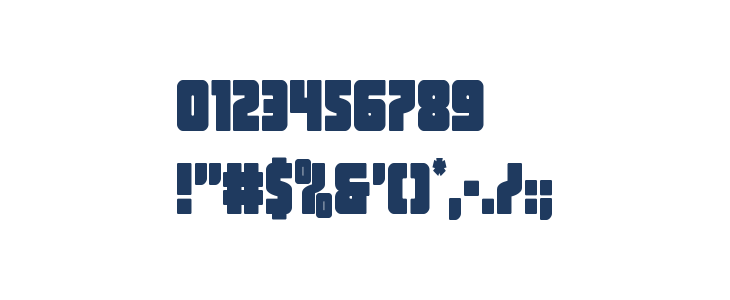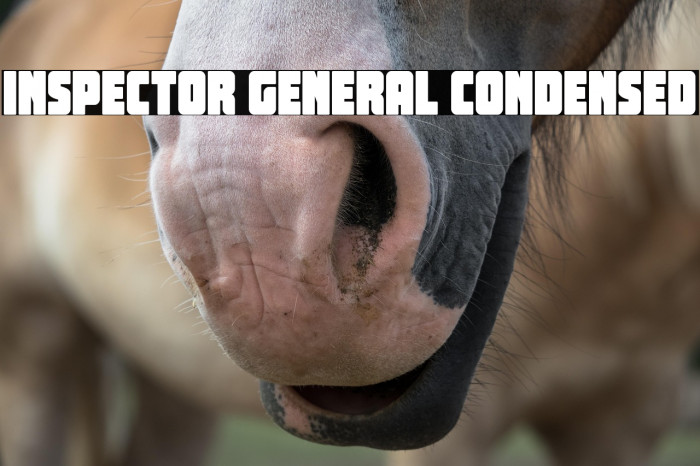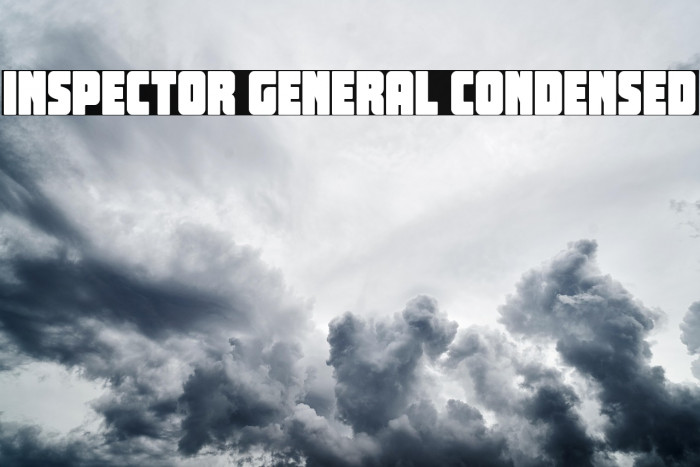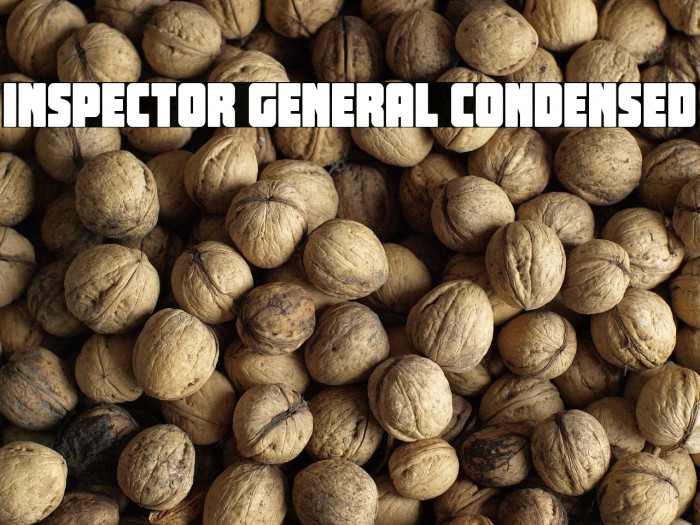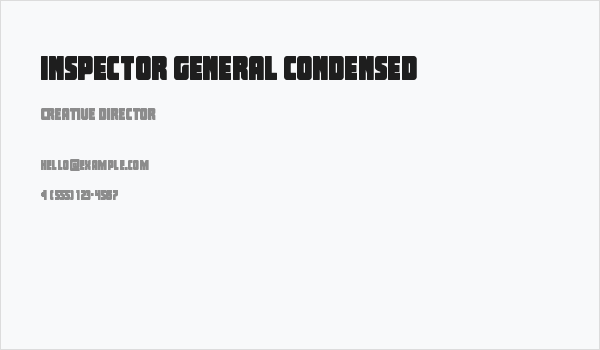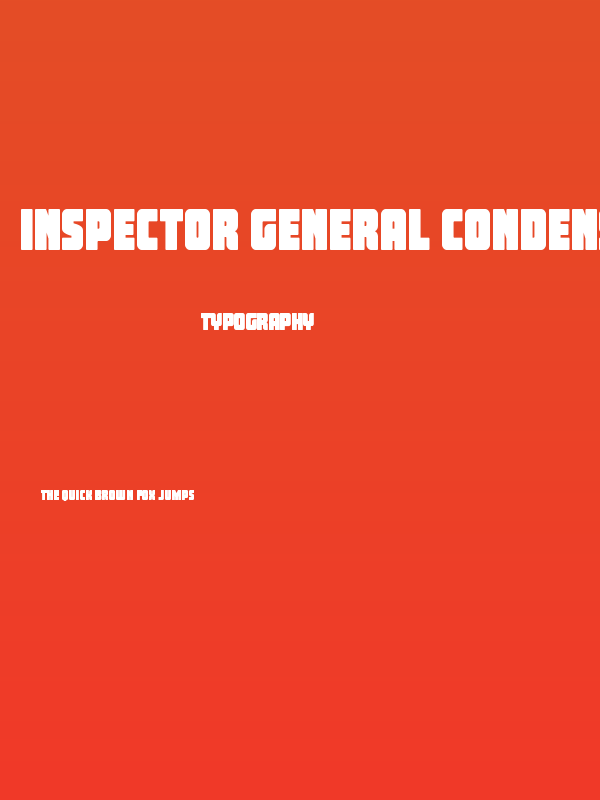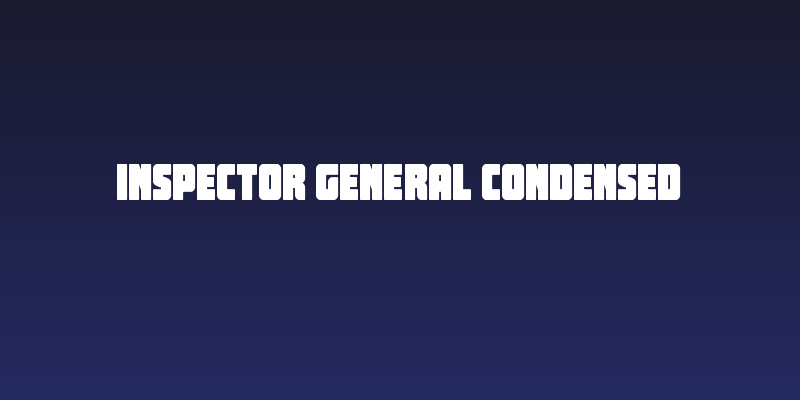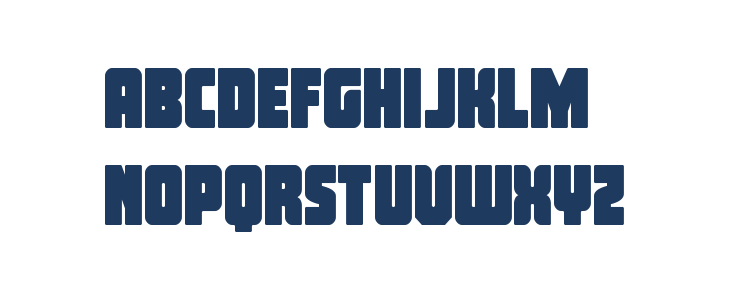
Inspector General Condensed Font
Inspector General Condensed Description
This font features a bold and impactful design with a condensed width, making it ideal for creating strong visual statements. The characters are blocky and geometric, with a uniform stroke width that gives a sense of solidity and stability. The uppercase letters are particularly striking, with their thick, heavy lines and minimal spacing, creating a compact and powerful appearance. The numbers and special characters maintain the same robust style, ensuring consistency across all elements. This font is well-suited for projects that require a commanding presence and a modern, industrial feel.
| Proposed Projects | Ideal for posters, headlines, branding, and signage where a strong visual impact is needed. |